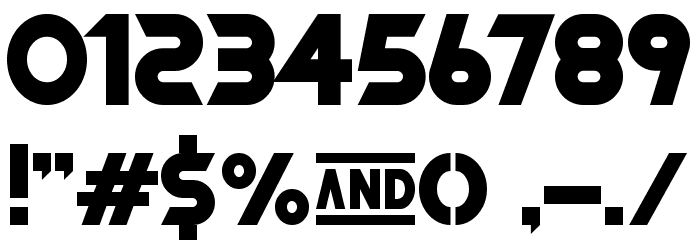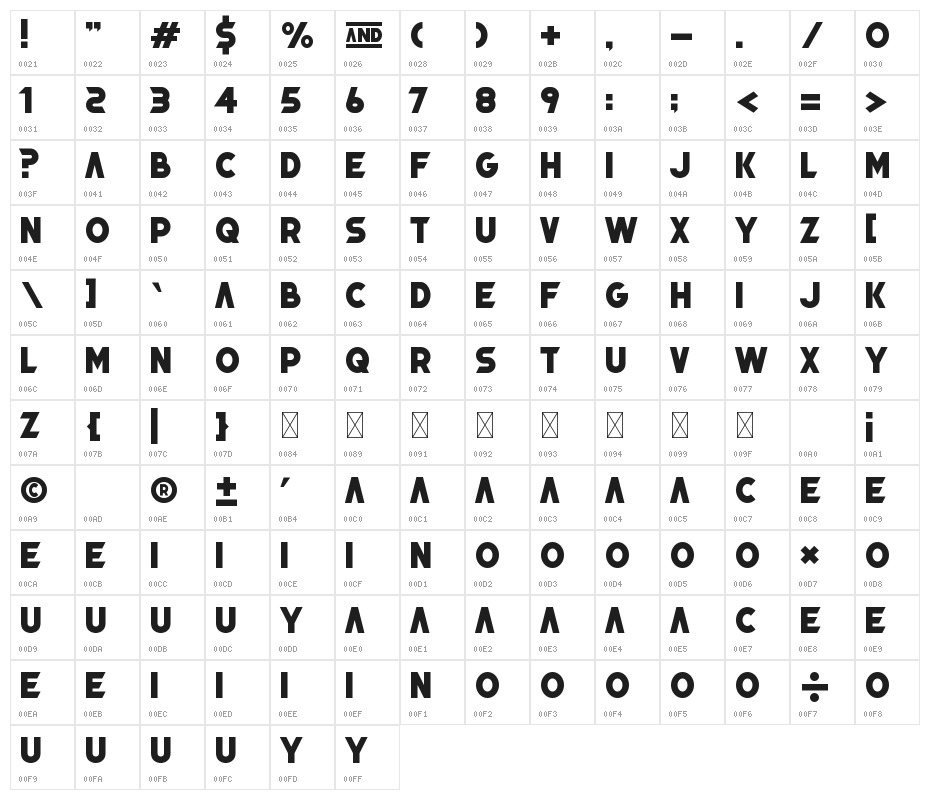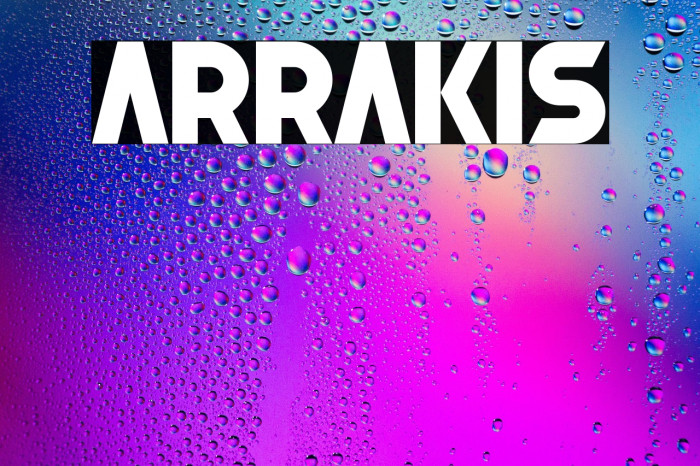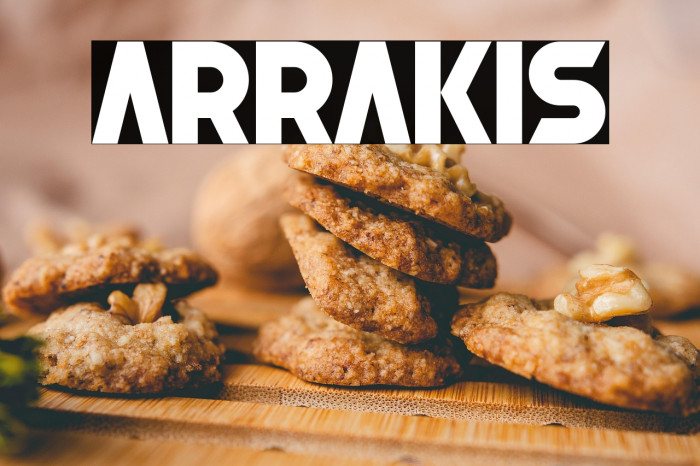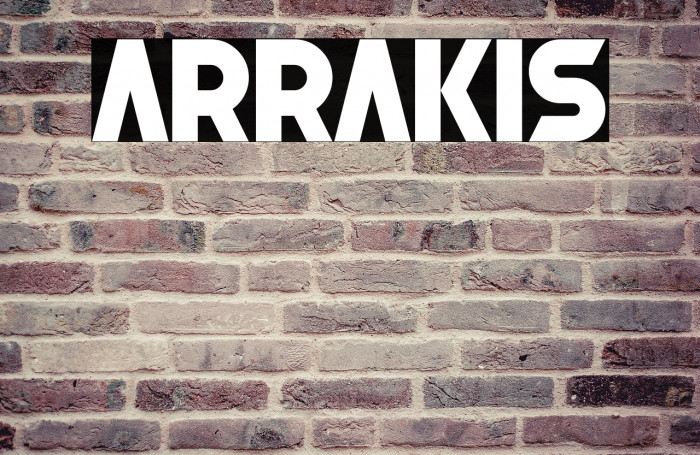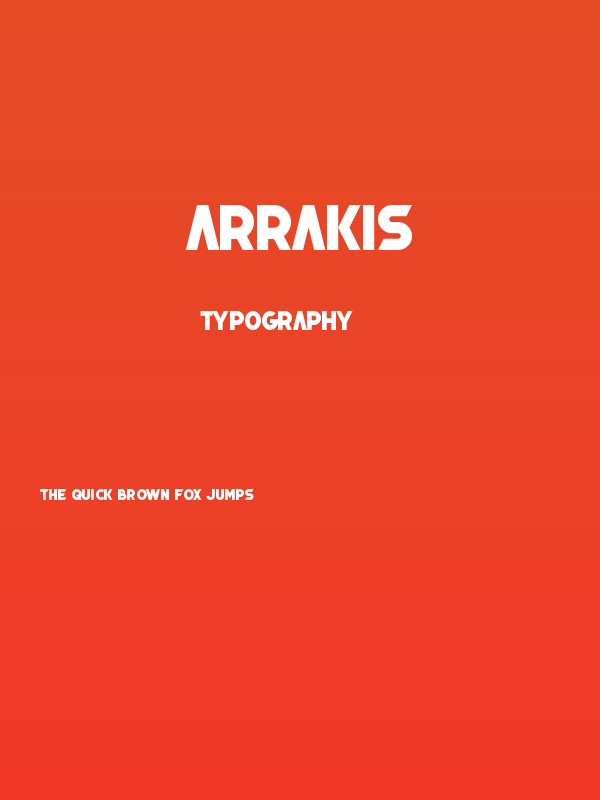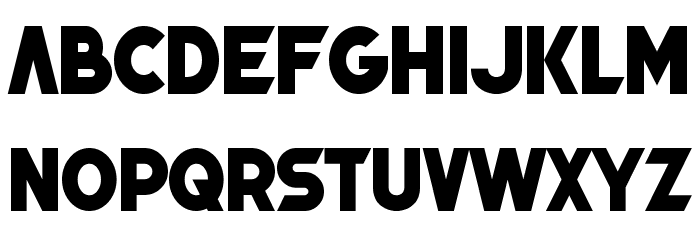
Arrakis Font
Arrakis Description
This font features a bold and geometric design, characterized by thick, uniform strokes and sharp angles. The letters are constructed with a strong emphasis on horizontal and vertical lines, creating a sense of stability and strength. The overall appearance is modern and assertive, making it suitable for impactful headlines and branding. The numbers and special characters maintain the same boldness and geometric style, ensuring consistency across all elements. The font's design is clean and uncluttered, with a focus on readability and visual impact.
| Proposed Projects | Ideal for branding, posters, headlines, and any project requiring a strong visual impact. |